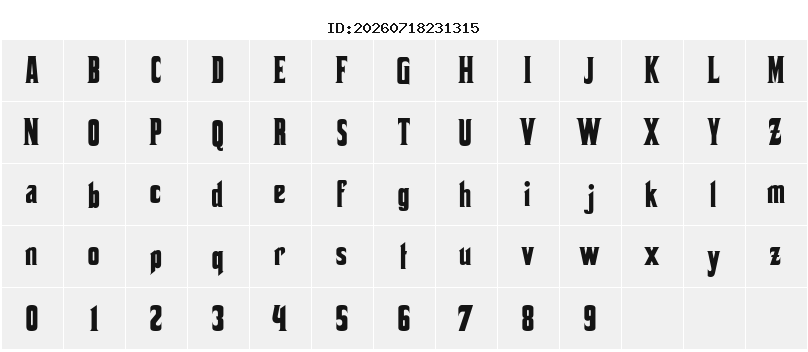
• Font Name: Corleone Due
• Full Font Name: Corleone Due
• Version: 12/07/01 Take the font leave the cannoli
Corleone Due.ttf is a modern, elegant sans-serif font designed for ultimate readability and visual harmony. Perfect for branding, headlines, web design, and print materials.